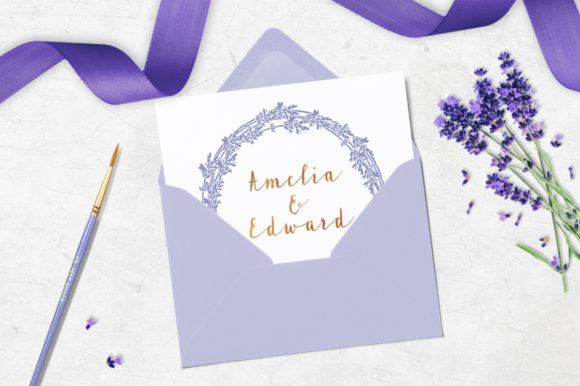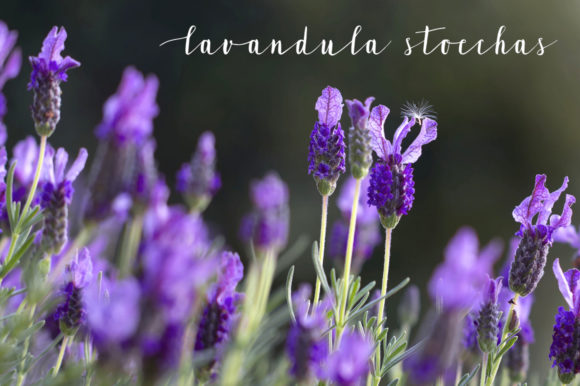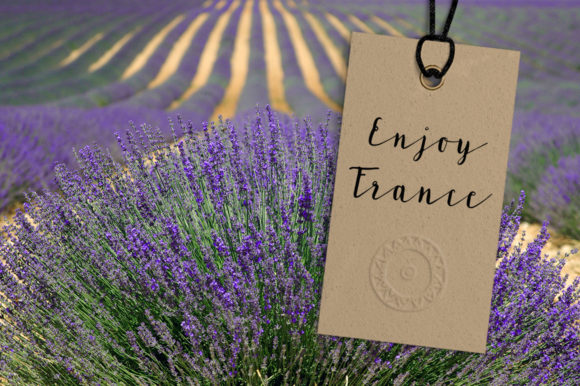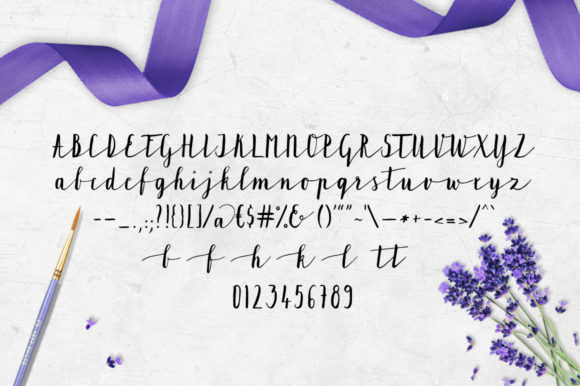
Introduction to Lavandia Font
Remember that moment when you stumbled upon the perfect design element that made your creative project truly shine? For designers, finding that one special piece can be a game-changer. It’s a feeling of excitement and relief all rolled into one, and it’s exactly what we’re about to share with you – a hidden gem that’s sure to elevate your designs: the Lavandia Font.
Imagine having a design resource that exudes warmth and natural charm, perfect for adding a personal touch to your creative endeavors. The Lavandia Font is a beautifully crafted, handwritten font that boasts a soft and inviting aesthetic, making it an ideal choice for designers seeking to add a unique touch to their projects. Whether you’re working on a digital design, a logo, or even a social media post, this font is sure to bring a touch of elegance and sophistication to your work.
Key Features of Lavandia Font
- High-quality, professional design ideal for creative projects and design resources.
- Designed to be highly legible, making it an excellent choice for use in body text and headings.
- Unique, elegant design that adds a touch of sophistication to any creative project or design resource.
Honest Review: Lavandia Font
As a designer, I’m always on the lookout for high-quality design resources to elevate my creative projects. The Lavandia Font is one such find that caught my attention recently.
- Beautiful, elegant design
- High quality for professional projects
Limitations: ⚠️ While the Lavandia Font is a great find, I do wish it came in more font weights and styles. Having more options would make it even more versatile for different design projects.
To get the most out of the Lavandia Font, use it in combination with other design elements, such as images and graphics, to create a visually appealing design. You can also experiment with different font sizes, colors, and styles to create a unique look.
The Lavandia Font is commonly used in creative projects such as logos, brochures, and business cards. It is also used in digital design projects, such as website headers and social media graphics.